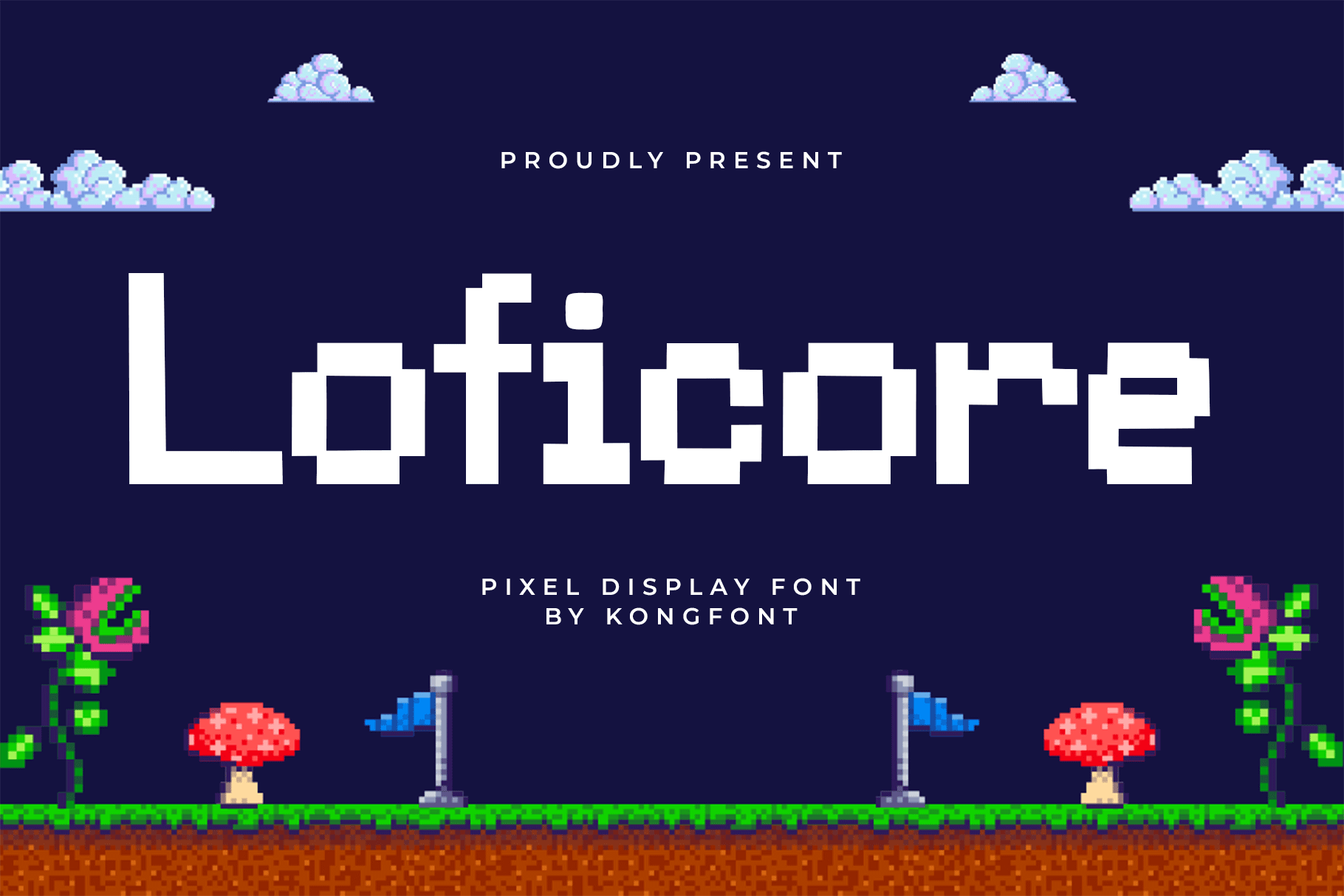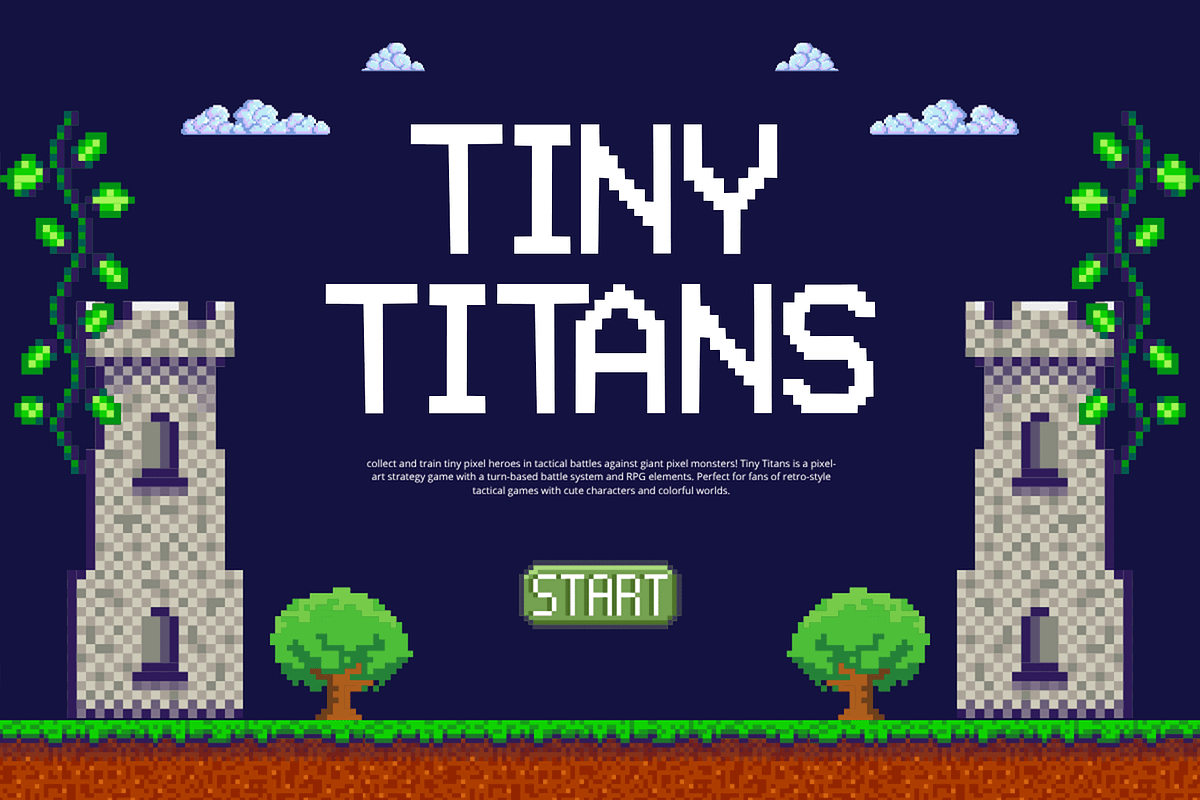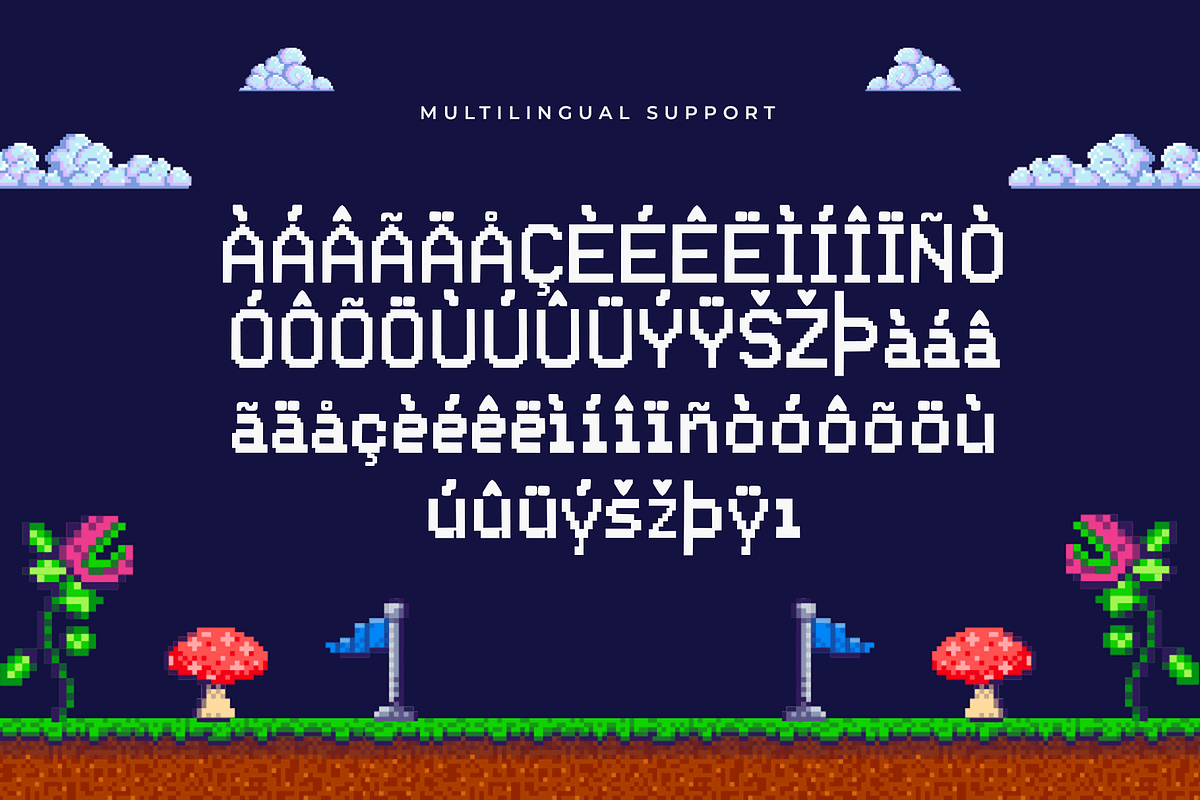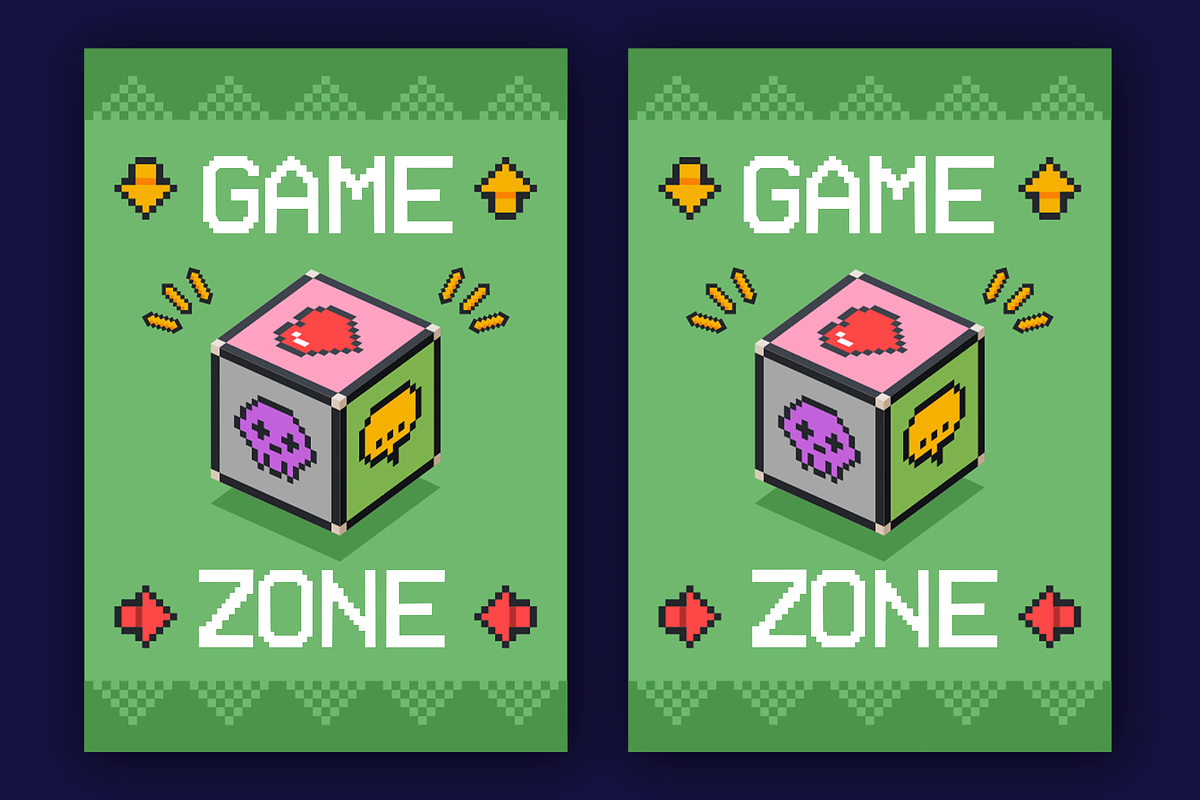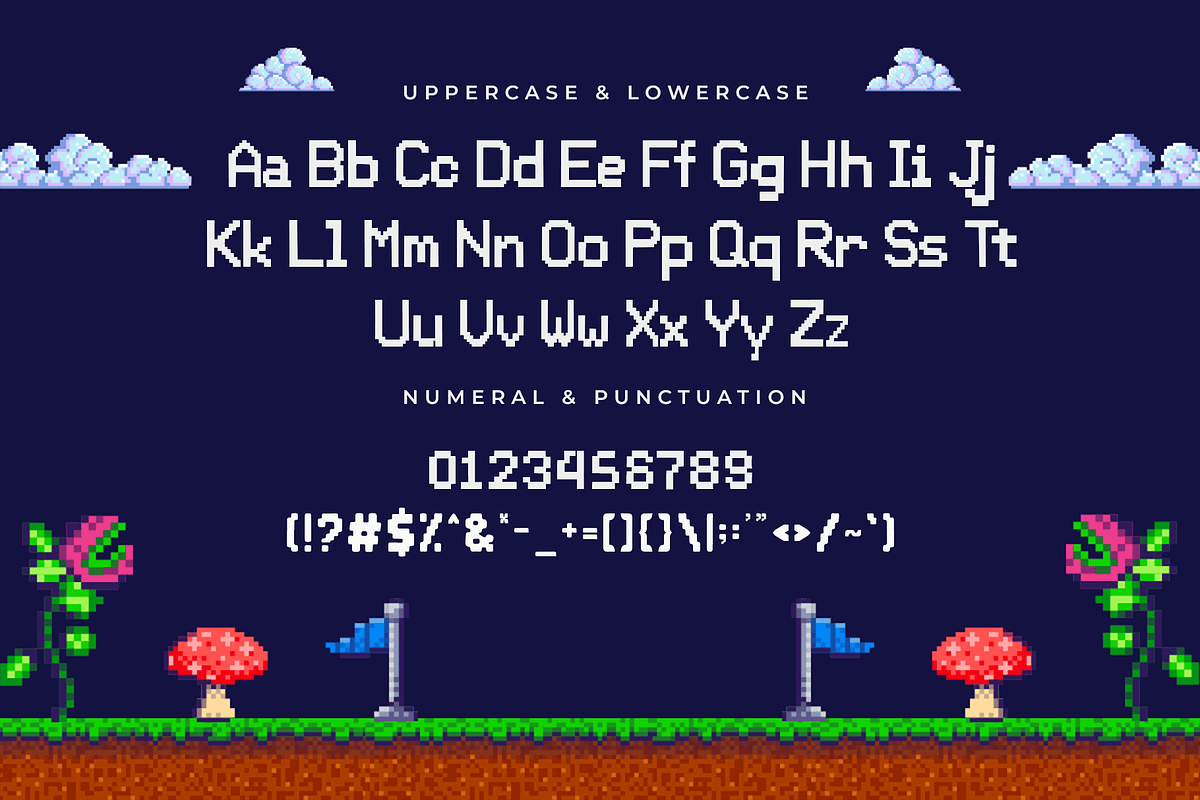
Loficore – Pixel Display Font
Loficore is a pixel-perfect display font that captures the nostalgic charm of retro gaming and digital interfaces. Designed with clean, blocky characters, this typeface is a throwback to 8-bit and 16-bit aesthetics, infused with a lo-fi, modern twist. Its sharp corners and grid-based structure make it perfect for designs that need a tech-savvy, vintage, or arcade-inspired feel.
Whether you're creating game titles, YouTube thumbnails, pixel-art projects, posters, or experimental web designs, Loficore delivers bold impact and undeniable retro vibes. It’s a fun choice for tech brands, creative coders, and indie game developers who want to make a visual statement.
Let Loficore power up your designs with digital nostalgia and pixel-perfect precision.